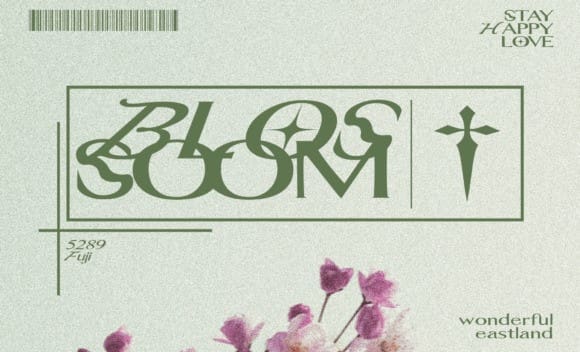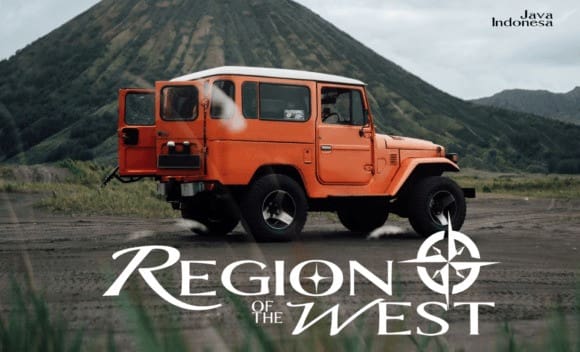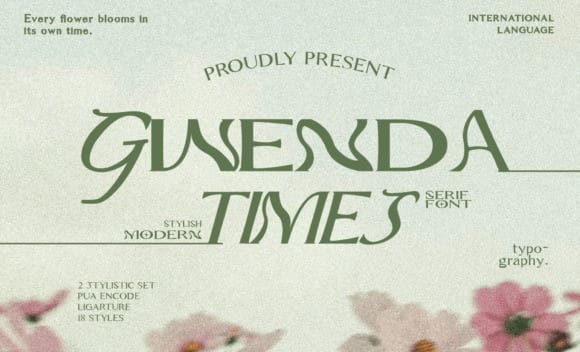
Gwenda Times Font
Gwenda Times Font, an elegant, contemporary serif font with an impeccably crafted fusion of retro and modern aesthetics. This multilingual marvel is as versatile as they come, serving diverse design requirements from trendy streetwear to sophisticated boardroom scenarios. The clean contours and distinguishing characteristics of Times forge it as a modern-classic pick, making it an excellent choice for typography enthusiasts and connoisseurs. Whether deployed for eye-catching exhibition displays, compelling poster designs, or trendsetting t-shirt graphics, Gwenda Times fluently straddles the spectrum of casual to professional styles. It’s a versatile creative asset poised to enrich a range of artistic endeavours.